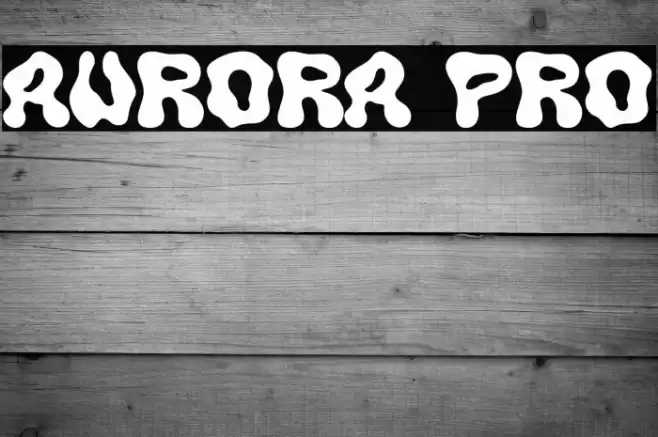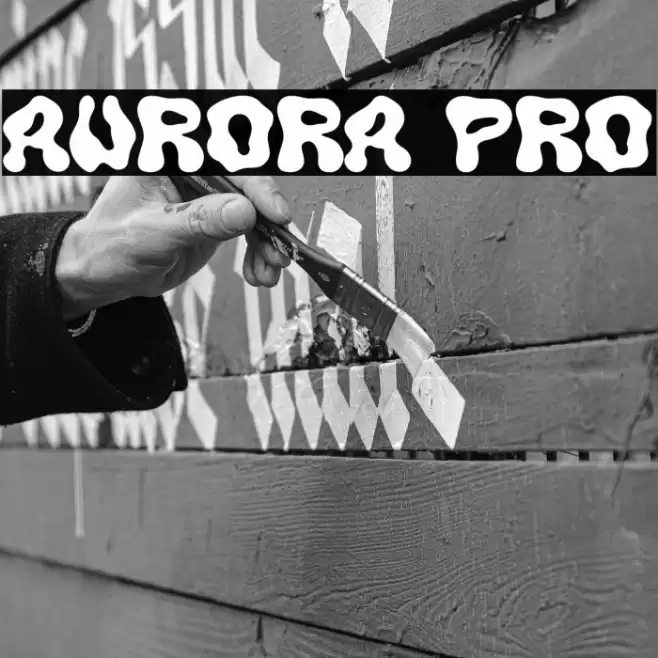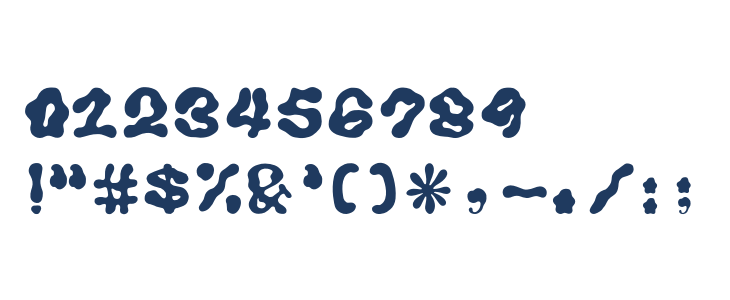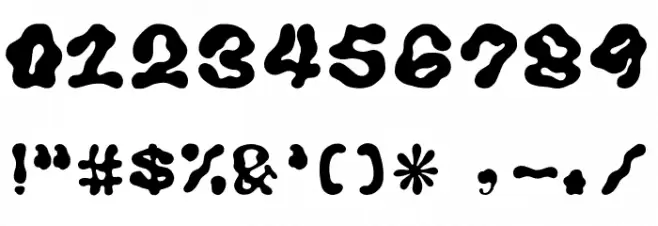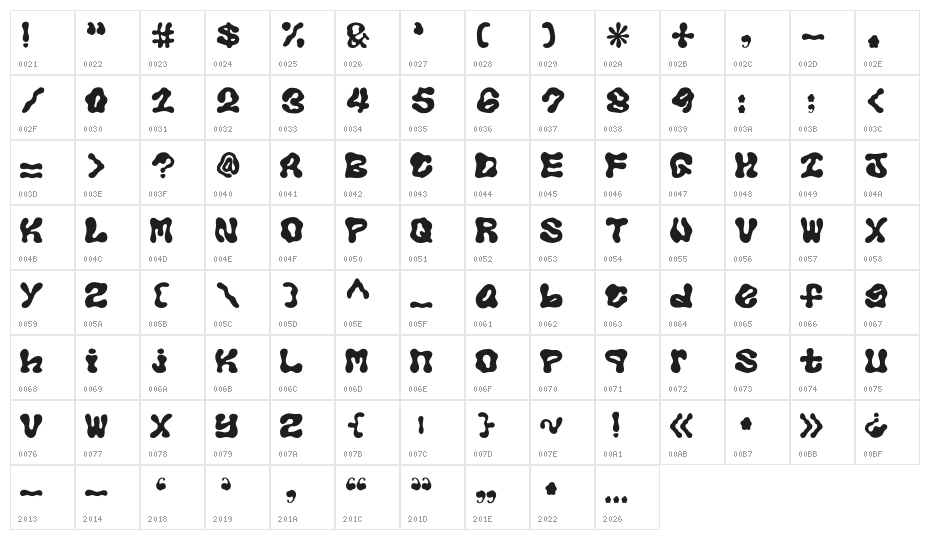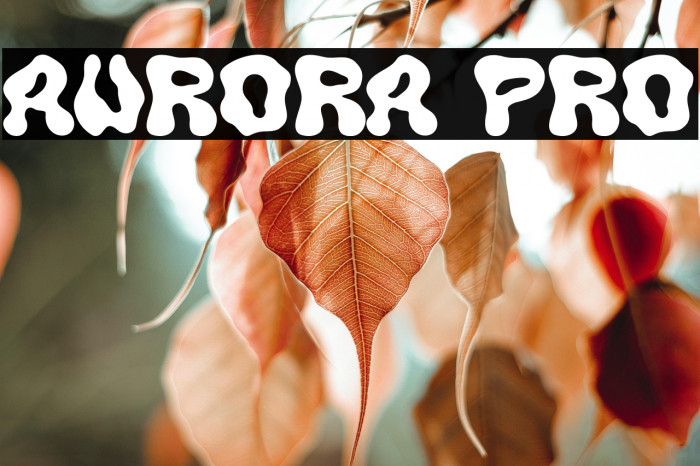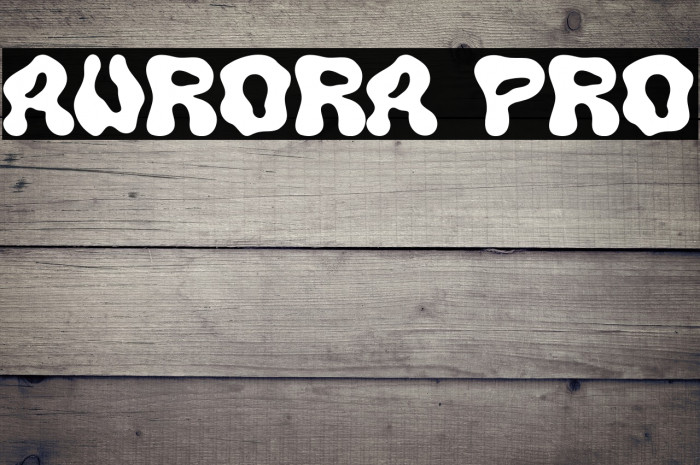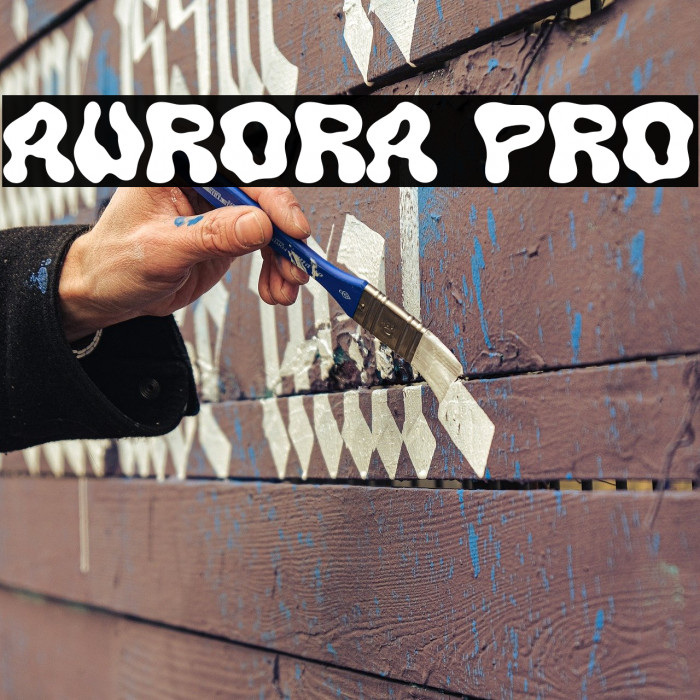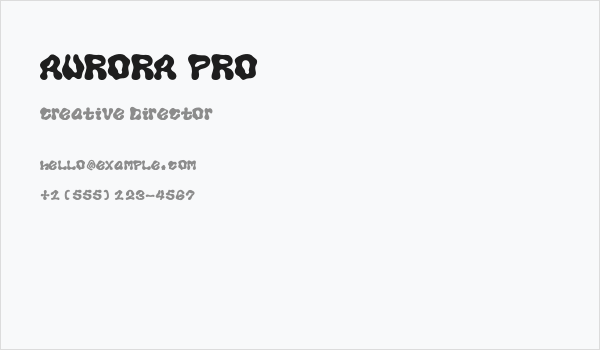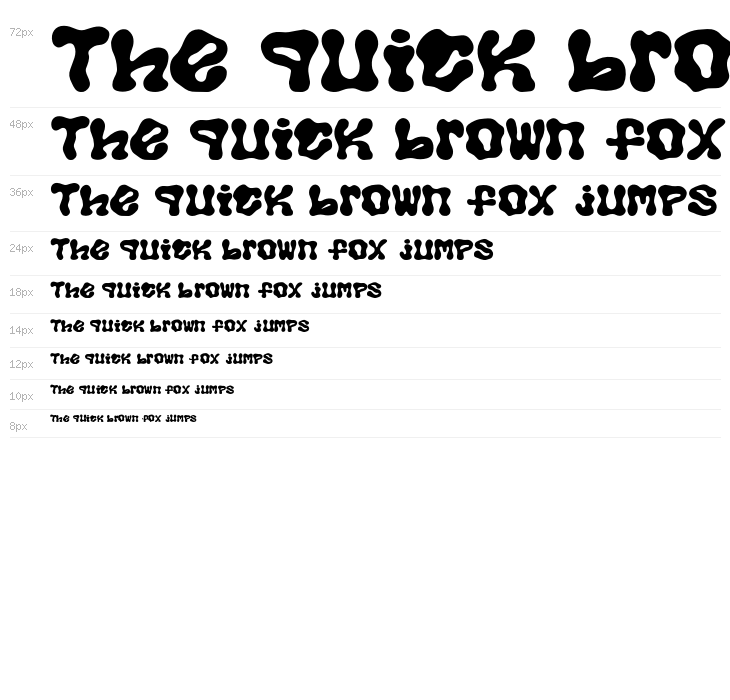
AURORA PRO Font
AURORA PRO Description
This font features a bold and playful design with a bubbly, organic appearance. The characters are rounded and have a fluid, almost liquid-like quality, giving them a unique and eye-catching look. The font's thick strokes and irregular shapes create a sense of movement and dynamism, making it ideal for creative and artistic projects. Its distinctive style is both modern and whimsical, offering a fresh take on traditional typefaces. The font maintains consistent weight throughout, ensuring readability while still providing a fun and engaging visual experience.
A bold, playful font with a bubbly, organic design from Uncategorized fonts.
- Proposed Projects: Ideal for posters, children's books, branding, and creative design projects.
- Overall Style: Modern, Whimsical